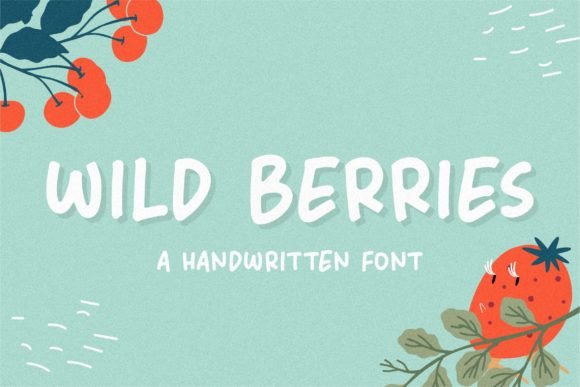
Behold, the Wild Berries Font, a script font with an untamed spirit, ready to ignite your creativity. This handwritten font, lovingly crafted by Balpirick, exudes a charm that is both elegant and playful, making it the perfect choice for those seeking a font that truly stands out. It's like a wildflower dancing in the breeze, adding a touch of whimsy and wonder to your designs.
With its free-flowing strokes and graceful curves, the Wild Berries Font possesses a captivating personality that draws the eye. It's designed to evoke a sense of nostalgia and warmth, transporting you to a simpler time when handwritten letters were cherished keepsakes. This font is not just a collection of characters; it's an artistic masterpiece that captures the essence of individuality and self-expression.
Step into a world of endless creative possibilities with the Wild Berries Font. Whether you're a seasoned designer or just starting out, this font is your passport to a world of captivating designs. Create eye-catching logos that leave a lasting impression, craft invitations that exude elegance, or design social media posts that pop with personality. The Wild Berries Font is your secret weapon for creating designs that captivate and inspire.
Unleash your inner artist and let the Wild Berries Font guide you on an extraordinary creative journey. With its versatility and charm, this font has the power to transform your designs into works of art. So, dive into the world of Wild Berries Font and let your creativity run wild.